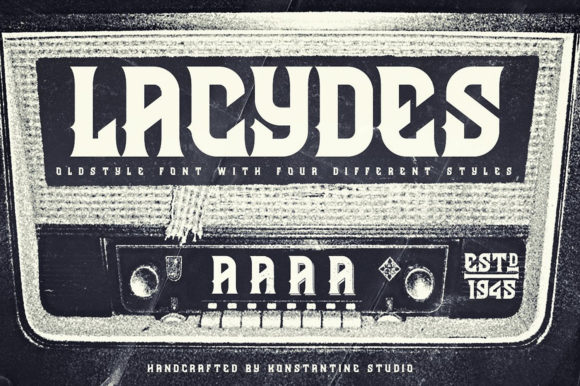
Behold Lacydes Font, the audacious display font that commands attention with its bold, thick letters. Its unique design is a feast for the eyes, captivating and enticing, making it the perfect choice for a myriad of projects. Whether crafting letterheads, titles, or creating captivating stationery, Lacydes Font adds a touch of originality and flair that leaves a lasting impression.
Step into a world of creative possibilities with Lacydes Font. Its bold presence is a visual symphony, adding a touch of sophistication and edge to your designs. Whether you're a seasoned designer or just starting, harness the power of Lacydes Font to make your projects stand out. It's not just a font; it's an experience that will ignite your imagination and leave your audience spellbound.
Unleash your creativity and dive into a world of visual storytelling with Lacydes Font. Its bold strokes and thick letters are a canvas for your artistry, allowing you to craft designs that resonate with your audience. Whether you're creating posters, flyers, or social media graphics, Lacydes Font will elevate your message and make it shine.
In the realm of branding, Lacydes Font is a game-changer. Its bold personality adds a layer of distinction, helping your brand stand out in a sea of sameness. Create logos, business cards, and marketing materials that exude confidence and leave an unforgettable impression. Lacydes Font is the key to unlocking a brand identity that commands attention and drives success.